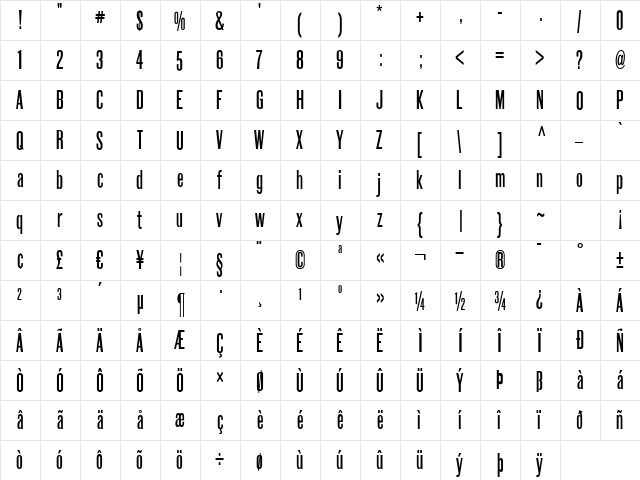
Poster Sans Regular
Design Context for Poster Sans Typeface
Poster Sans offers clean, dependable letterforms without strong stylistic allegiance, making it a practical choice for designers who need flexibility.